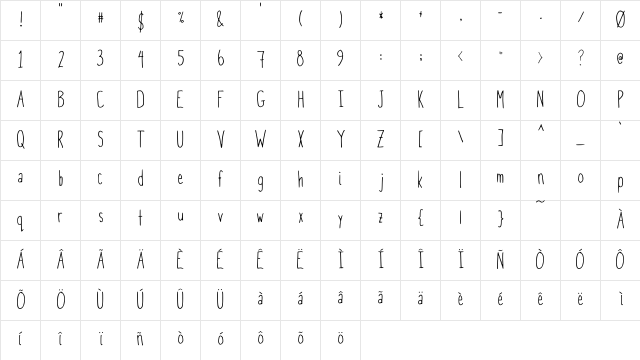
Skinny Me Regular
Design Context for Skinny Me Typeface
Skinny Me is a composed and adaptable typeface that performs quietly and consistently across a wide range of design contexts.
Pro Tip: Use Skinny Me in both headline and body roles to test its range before committing to a single application.